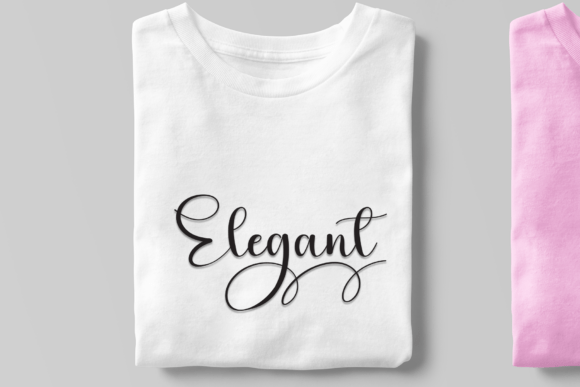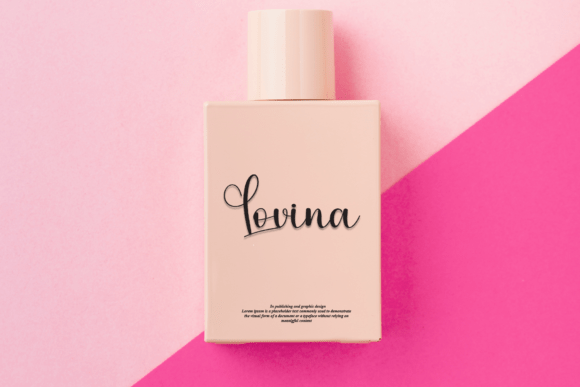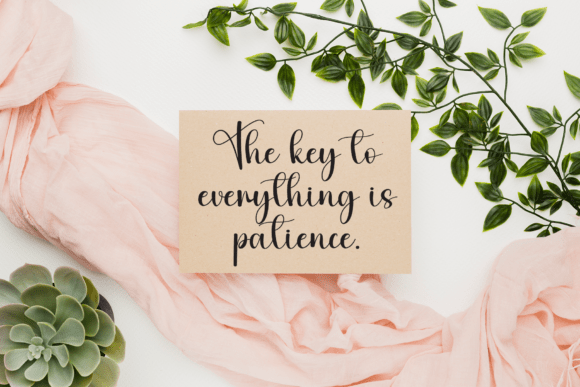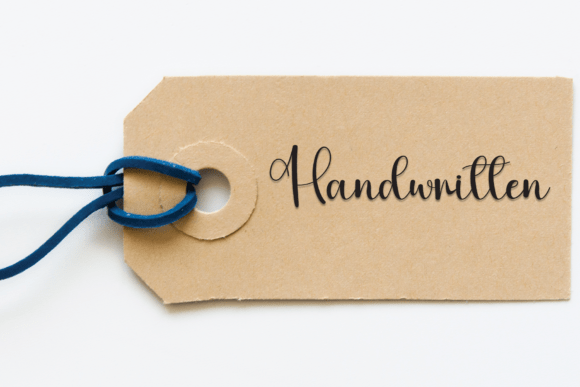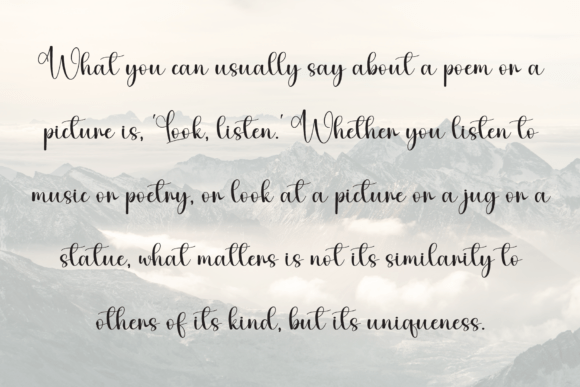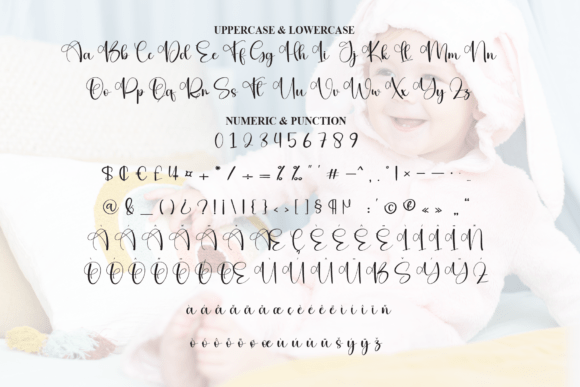
The Art of Expression: Unleashing Your Creativity with Babywonder Font
As you sit at your desk, staring at a blank canvas, the pressure to create something extraordinary can be overwhelming. But what if you could tap into a world of limitless possibility, where every letter and stroke of the pen brought your vision to life?
Enter Babywonder Font, a revolutionary creative product designed to give you the tools you need to unleash your inner artist. With its latest style letters, you’ll be able to add a touch of elegance and sophistication to any project, from wedding invitations to social media post logos. Whether you’re a seasoned designer or just starting out, Babywonder Font is the perfect companion for bringing your ideas to life.
Babywonder Font Key Features
- Font Style: Cursive, Script, Handwritten
- Font Size: 400 glyphs, covering a wide range of characters and symbols
- Unique Characteristics: Includes a variety of swashes, ligatures, and alternate characters for creative typography
- Language Support: Supports multiple languages, including Latin, Greek, and Cyrillic alphabets
Designer Review: Babywonder Font
Overall, I’m impressed with the playful and whimsical vibe of the Babywonder Font. ✨ It’s perfect for creating eye-catching designs that need a touch of childlike wonder. I particularly love how the font works well in bold weights, adding a nice contrast to the regular weight. ✨
The font also does a great job at conveying a sense of innocence and curiosity, which is ideal for designs related to children, education, or family. ✨ However, I do have a few reservations about the font’s limitations.
- ⚠️ The font’s thin weights can be difficult to read at small sizes.
- ⚠️ Some of the characters may not be suitable for professional or formal designs, due to their informal and playful nature.
- ⚠️ The font may not be as versatile as other fonts, due to its limited character set and lack of italic styles.
Despite its limitations, I think the Babywonder Font is a great choice for designers who want to add a touch of playfulness and whimsy to their designs. With a little creativity and caution, this font can help create some truly memorable and engaging designs.
Getting the Most Out of Babywonder Font
Babywonder Font is commonly used in:
- Children’s book illustrations and design.
- Infographic and educational materials.
- Marketing and branding materials for family-friendly businesses.
Dancing Script is a elegant script font that adds a touch of whimsy and playfulness to designs. It’s ideal for use in children’s books, party invitations, and any other project where a sense of fun and excitement is needed. Compared to Babywonder Font, Dancing Script has a more playful and dynamic feel, making it a great choice for designs that require a sense of energy and movement.
Alex Brush is a beautiful script font that conveys a sense of sophistication and elegance. It’s perfect for use in branding materials, wedding invitations, and any other design where a touch of luxury is needed. Compared to Babywonder Font, Alex Brush has a more refined and polished look, making it a great choice for high-end designs that require a sense of sophistication and elegance.